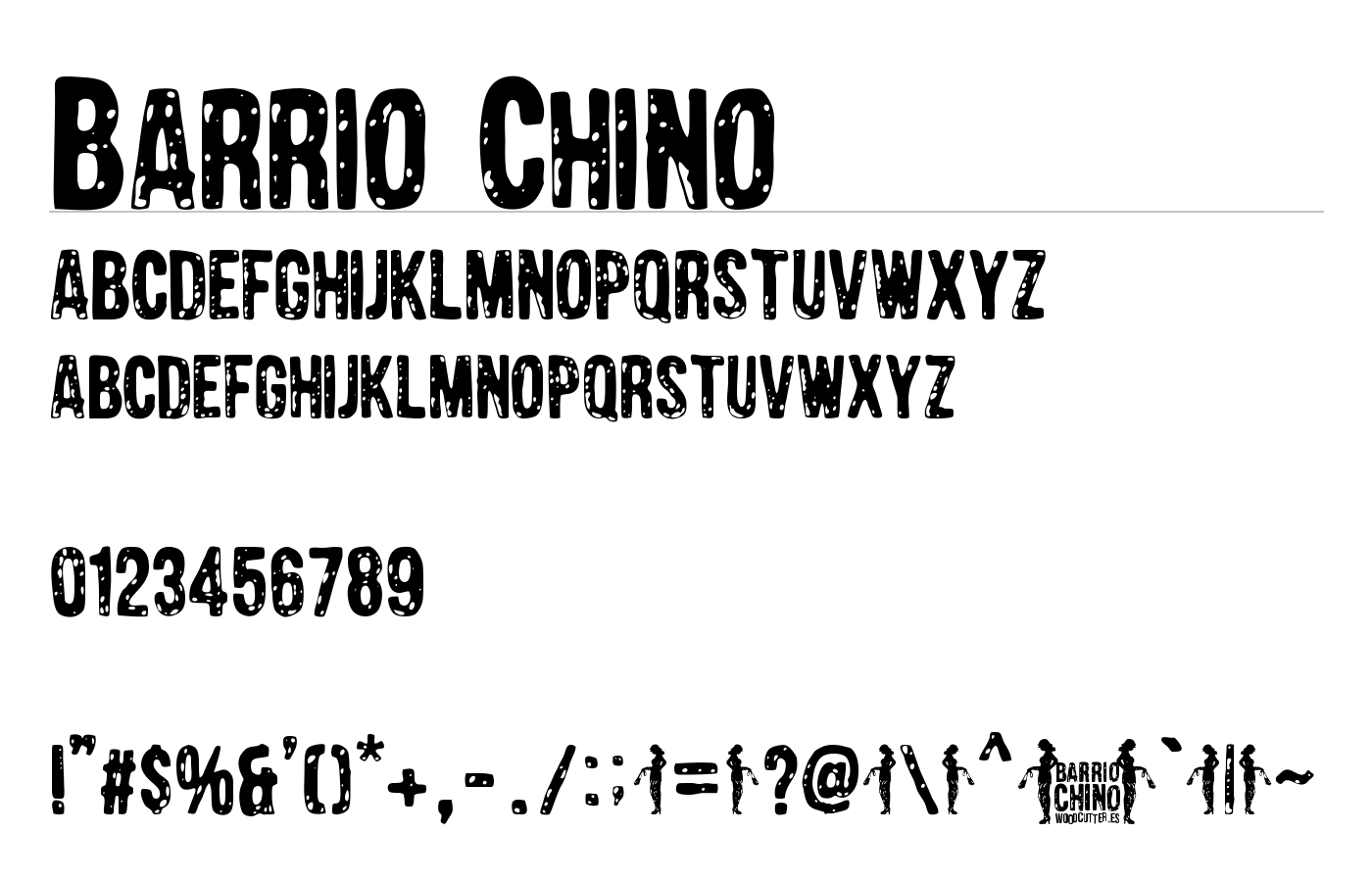
Barrio Chino is a bold, condensed sans serif font featuring a playful, distressed texture that gives it a gritty, urban feel. Its tall letterforms with irregular, worn spots evoke a vintage street-art or woodcut style, making it perfect for eye-catching headlines, logos, or posters that want to convey energy and a raw, handmade vibe. This font works well where a bold, expressive personality is needed to stand out and add character.
Barrio Chino Font
About Barrio Chino Font